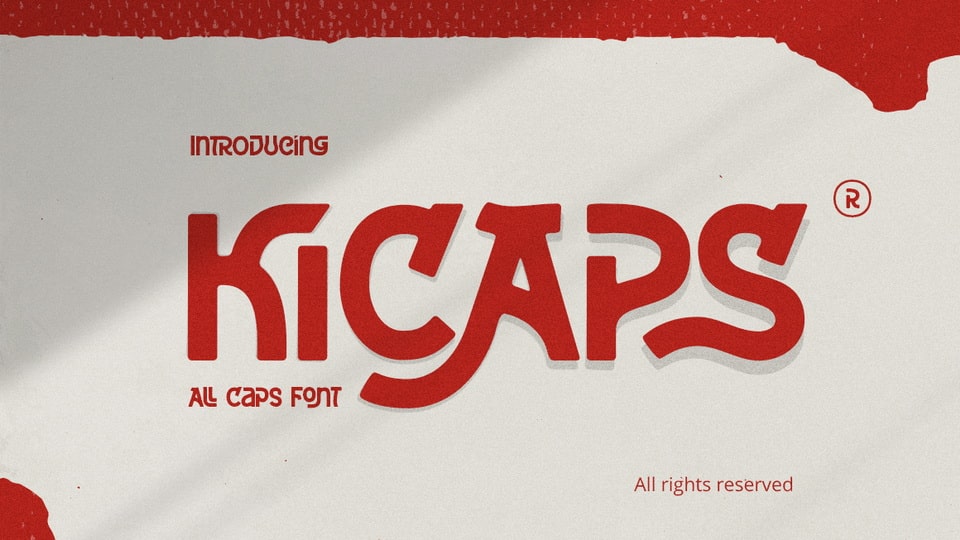
Download Kicaps font, an unique all caps sans serif and bold modern look typeface. Kicaps font design presents a unique display of each characters that created awesome typeface.